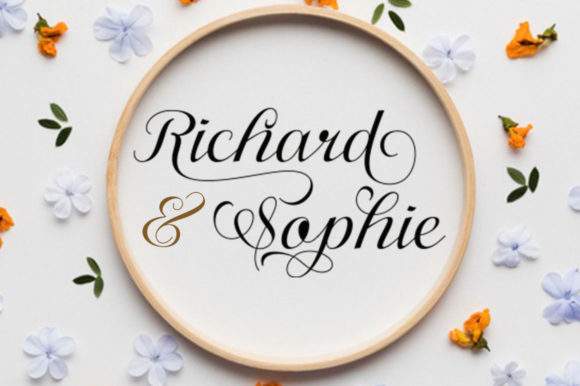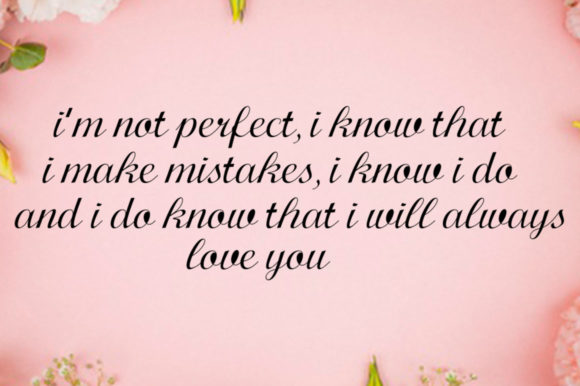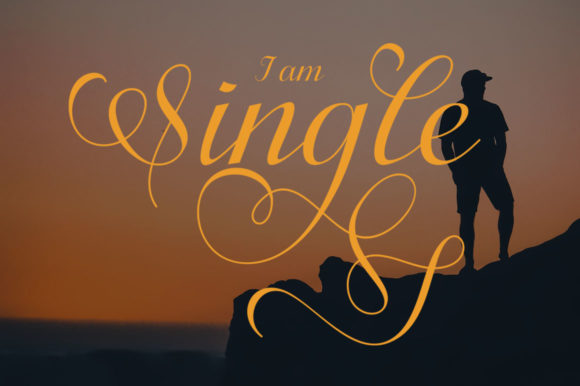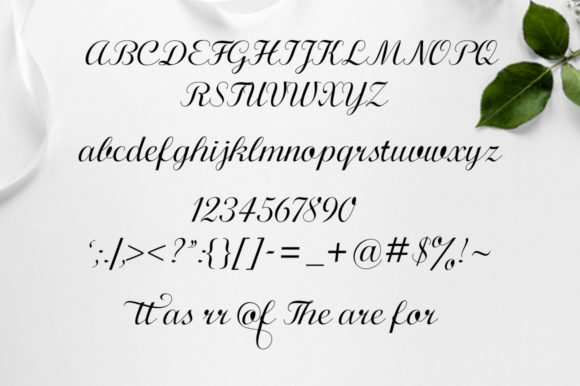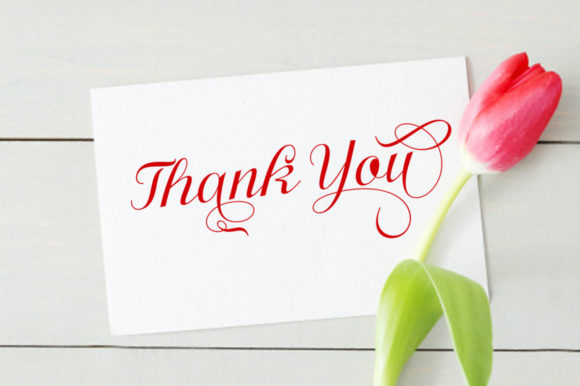
The Art of Elegant Typography: Unleashing the Beauty of Calligraphy Script Font
There’s something magical about the moment when a design idea finally takes shape, and the right font makes all the difference. It’s the spark that sets your imagination ablaze, the key that unlocks the perfect visual language. For designers, the search for the perfect font is an ongoing quest, and today, we’re excited to introduce you to a treasure that’s sure to elevate your projects: the stunning Calligraphy Script Font.
With its elegant and flowing handwritten style, the Calligraphy Script Font is a masterclass in sophistication and refinement. Its PUA encoding makes it incredibly easy to access all the glyphs and swashes, allowing you to create truly show-stopping designs. Whether you’re a seasoned pro or just starting out, this font is a game-changer, and we can’t wait to share its secrets with you.
Calligraphy Script Font Key Features
- Font Family: Script, Calligraphy
- Font Size: Supports font sizes ranging from 8 to 72 points
- Resolution: Optimized for high-resolution displays, including Retina and 4K screens
- Unique Characteristics: Elegant, cursive script with intricate flourishes and connecting strokes, ideal for creative and artistic applications
- Language Support: Supports a wide range of languages, including Latin, Greek, and Cyrillic scripts
Calligraphy Script Font Review
I’ve worked with my fair share of script fonts, and I must say, Calligraphy Script Font has its charm. Here are a few things that work well: ✨
- Beautifully crafted letterforms that evoke a sense of elegance and sophistication.
- Excellent legibility, even at smaller font sizes.
- Supports a wide range of languages, making it a great choice for multilingual designs.
- A wide range of weights and styles to choose from, offering flexibility in design.
However, as with any font, there are some limitations: ⚠️
- Lack of consistency in the spacing between letters, which can make it challenging to use in body text.
- The font may not be the best choice for digital displays, as it can appear blurry or pixelated.
- Some users may find the font too ornate or busy, which can detract from the overall design.
Overall, I think Calligraphy Script Font is a great choice for designers who want to add a touch of elegance and sophistication to their designs. While it may have some limitations, its beauty and versatility make it a valuable addition to any design library.
Experiment with different font sizes, line spacing, and text alignment to create a unique look. Use the font in combination with other decorative elements, such as flourishes and swashes, to add visual interest. Consider using a bold weight to create a more dramatic effect.
The Calligraphy Script font is ideal for creating elegant and sophisticated designs for weddings, anniversaries, and other special occasions. It can also be used for branding and marketing materials, such as logos, business cards, and brochures. Additionally, it can be used for creating custom invitations, menus, and other printed materials.
Alternatives to Calligraphy Script Font for Designers
Carolyna Pro is a modern calligraphy font that offers a more elegant and sophisticated look compared to Calligraphy Script Font. It’s perfect for creating high-end branding materials, invitations, and wedding stationery. While Calligraphy Script Font has a more traditional feel, Carolyna Pro has a more contemporary and refined touch.
Alex Brush is a beautiful script font that exudes warmth and personality. It’s ideal for designing creative and artistic projects such as book covers, posters, and greeting cards. Compared to Calligraphy Script Font, Alex Brush has a more fluid and expressive feel, making it perfect for projects that require a more emotional connection.
Can I use Calligraphy Script Font for digital applications?
Yes, Calligraphy Script Font can be used for digital applications, such as websites, mobile apps, and digital signage. However, it’s essential to ensure that the font is optimized for digital use and is compatible with the target platform. You may also need to adjust the font size and color to maintain readability on smaller screens.